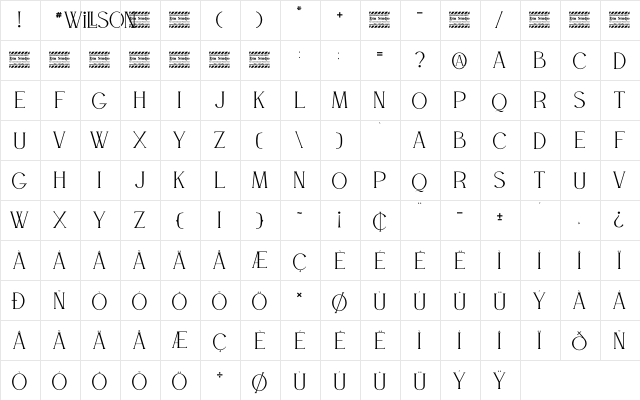
WILLSON Personal Use Regular
| Designer | Donis Miftahudin |
Design Context for WILLSON Personal Use Typeface
WILLSON Personal Use is a composed and adaptable typeface that performs quietly and consistently across a wide range of design contexts.